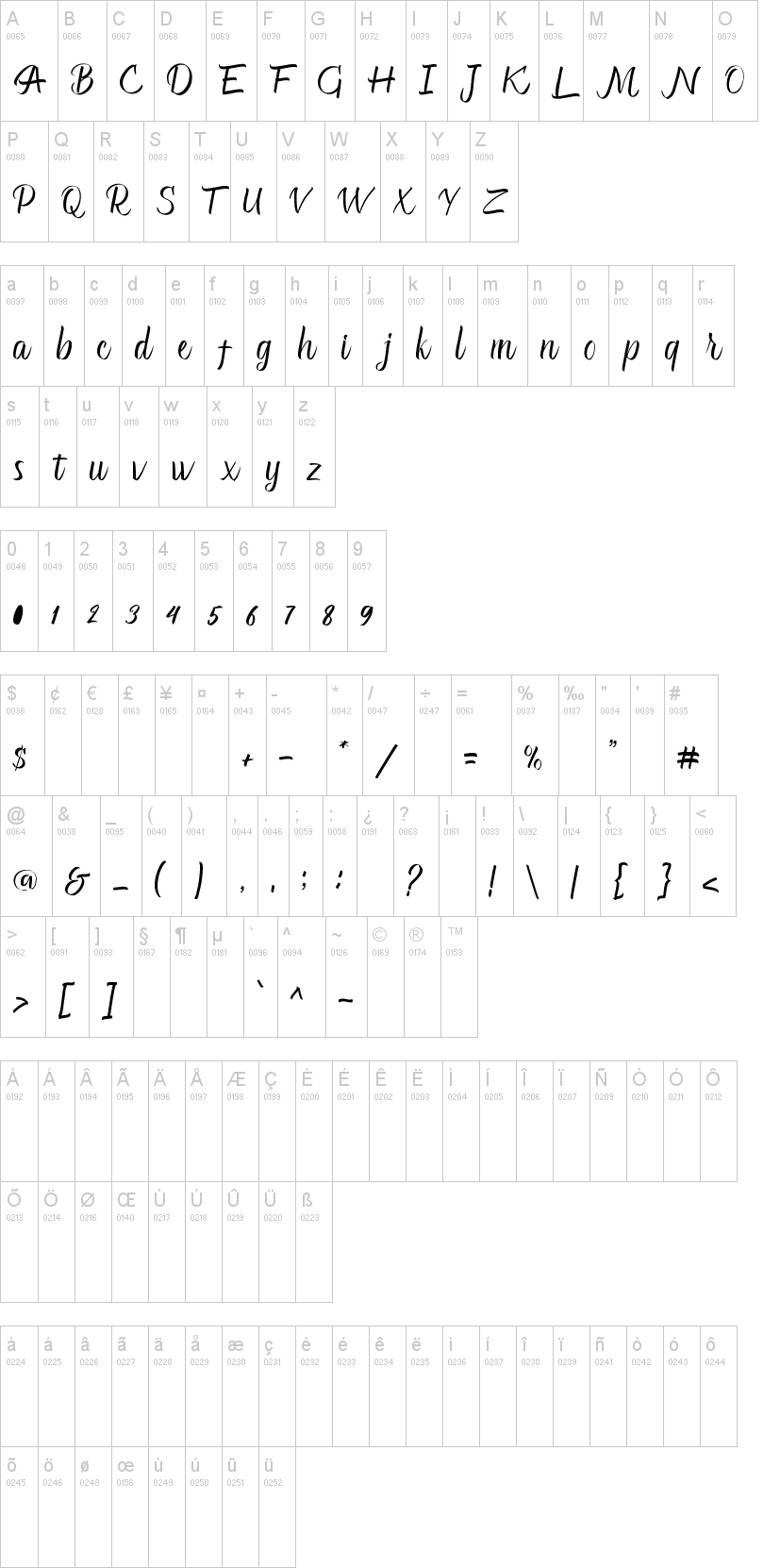
Note of the authorThis font is inspired from handwriting itself, it is suitable for design-themed purposes such as festivals, graduation, weddings, new year and others.